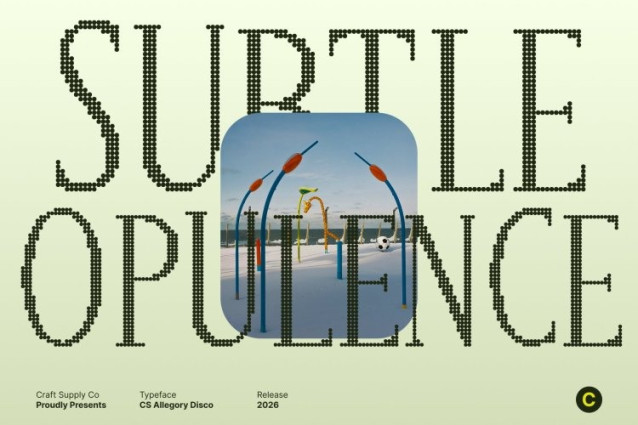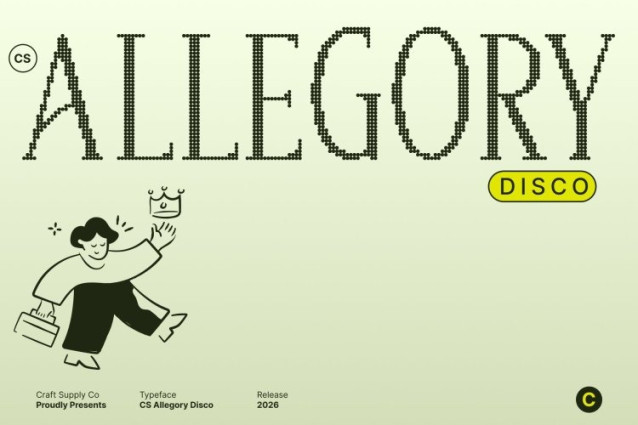
CS Allegory Disco Font
CS Allegory Disco Font This is an elegant serif font inspired by the beauty and refinement of Renaissance letterforms. Its graceful curves, balanced proportions, and carefully composed strokes reflect classical artistry while maintaining a clean, modern sensibility. The result is a typeface that feels timeless, cultured, and visually refined.
Refined Curves with Disco-Inspired Radiance
Each character is sculpted with smooth curves and precise detailing, creating a luxurious aesthetic that exudes confidence and class. Enhanced with a disco effect, the font gains a radiant, celebratory presence evoking shimmering lights, mirrored surfaces, and the vibrant glow of retro nightlife. This fusion transforms traditional elegance into something bold, festive, and visually alive.
Classic Heritage Meets Energetic Modern Expression
This font bridges classical Renaissance design and modern display energy. While its serif structure honors tradition, the disco influence introduces rhythm, movement, and excitement, making the font feel expressive and contemporary. This balance allows it to elevate minimalist layouts or add dramatic flair to ornate compositions.
Ideal for Editorial, Branding, and Glamorous Displays
Perfect for editorial design, luxury branding, packaging, and statement-driven visuals, this font delivers both sophistication and show-stopping energy. Whether used for refined headlines, elegant logotypes, or celebratory campaigns, this font communicates heritage, quality, and glamour capturing the spirit of timeless beauty infused with the pulse of the dance floor.